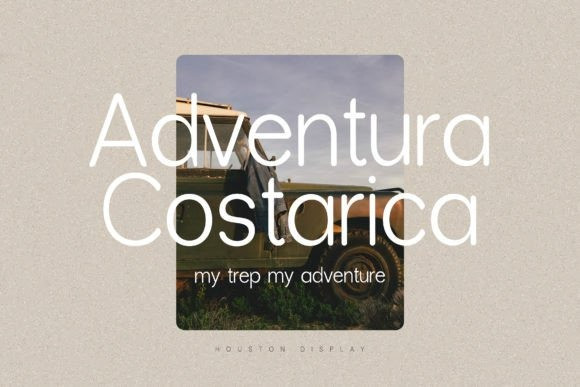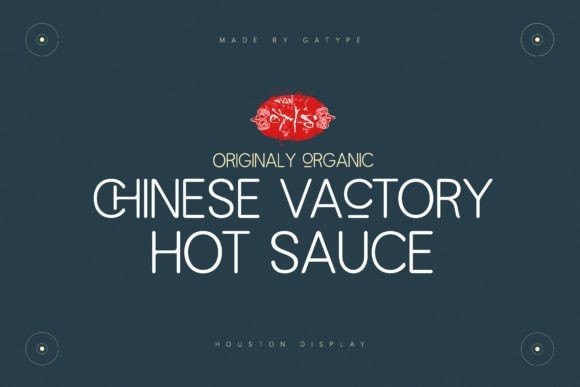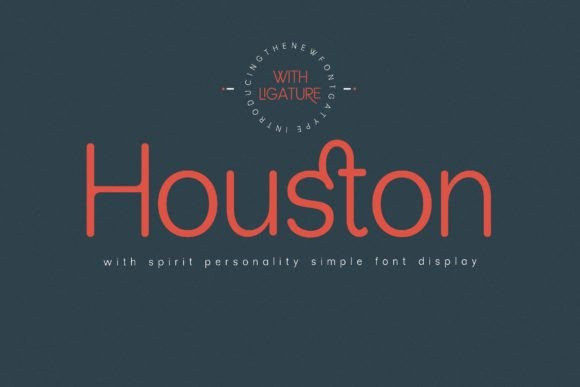
Houston Font
Houston Sans Serif Font is a neat and casual sans serif font. Stylish and elegant, this font is suitable for a wide range of design ideas.